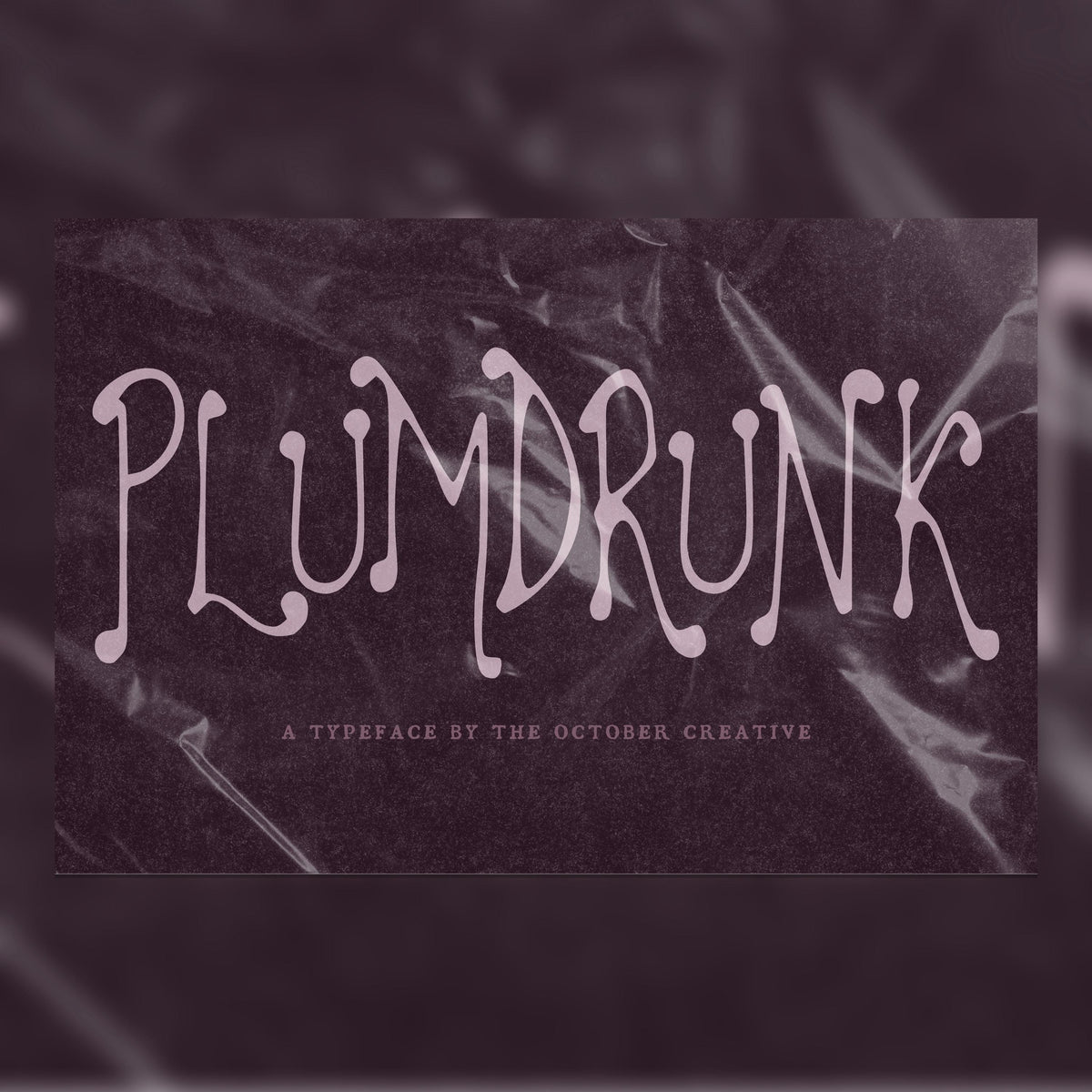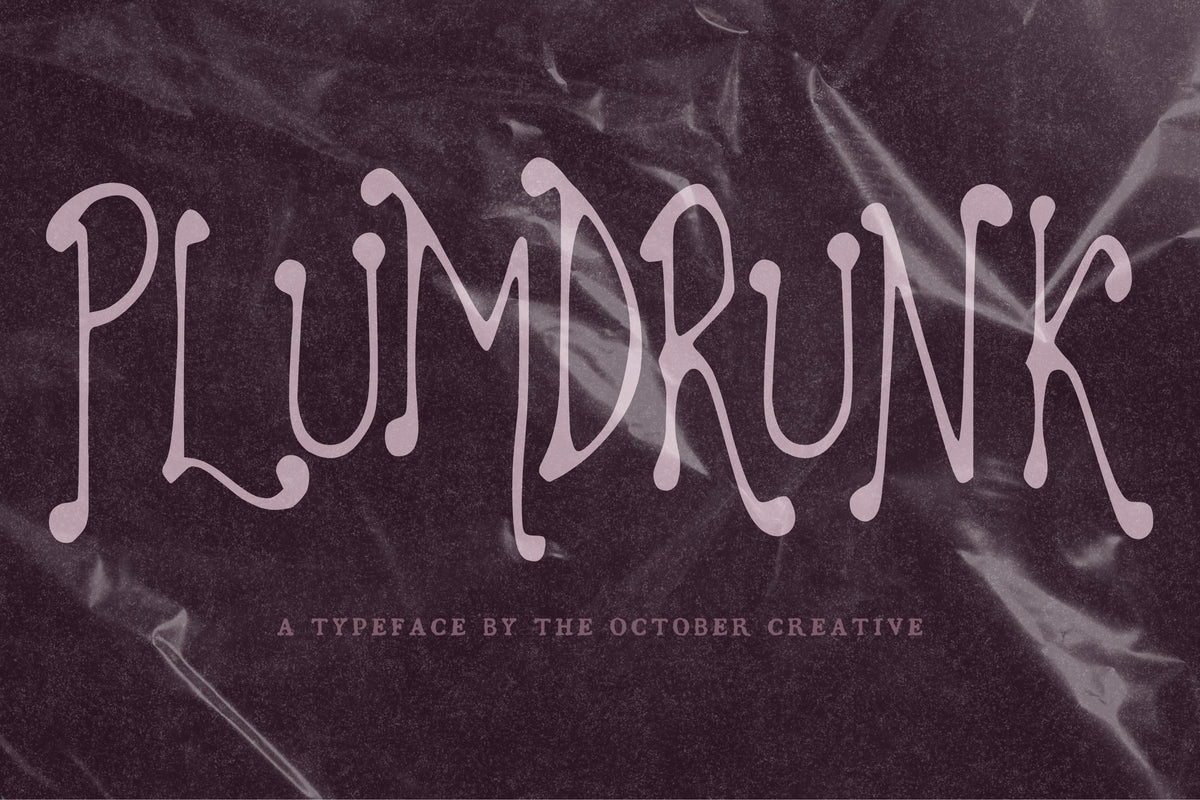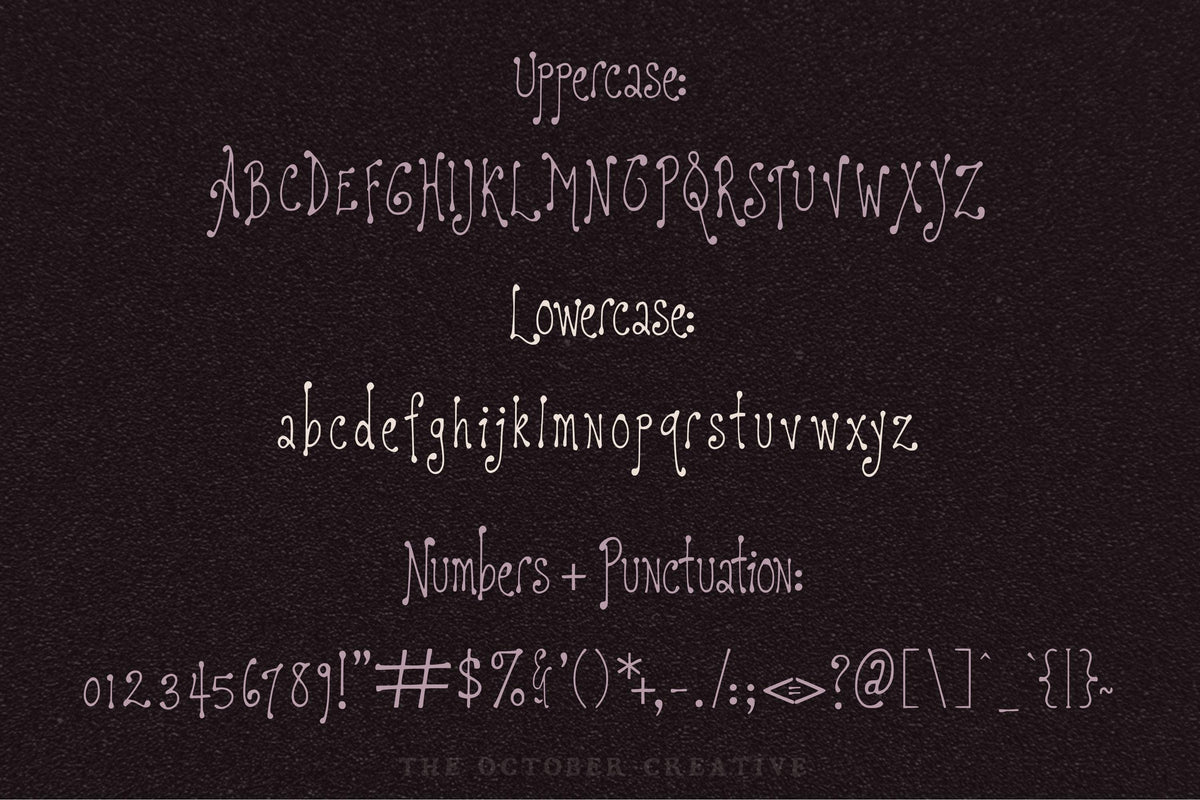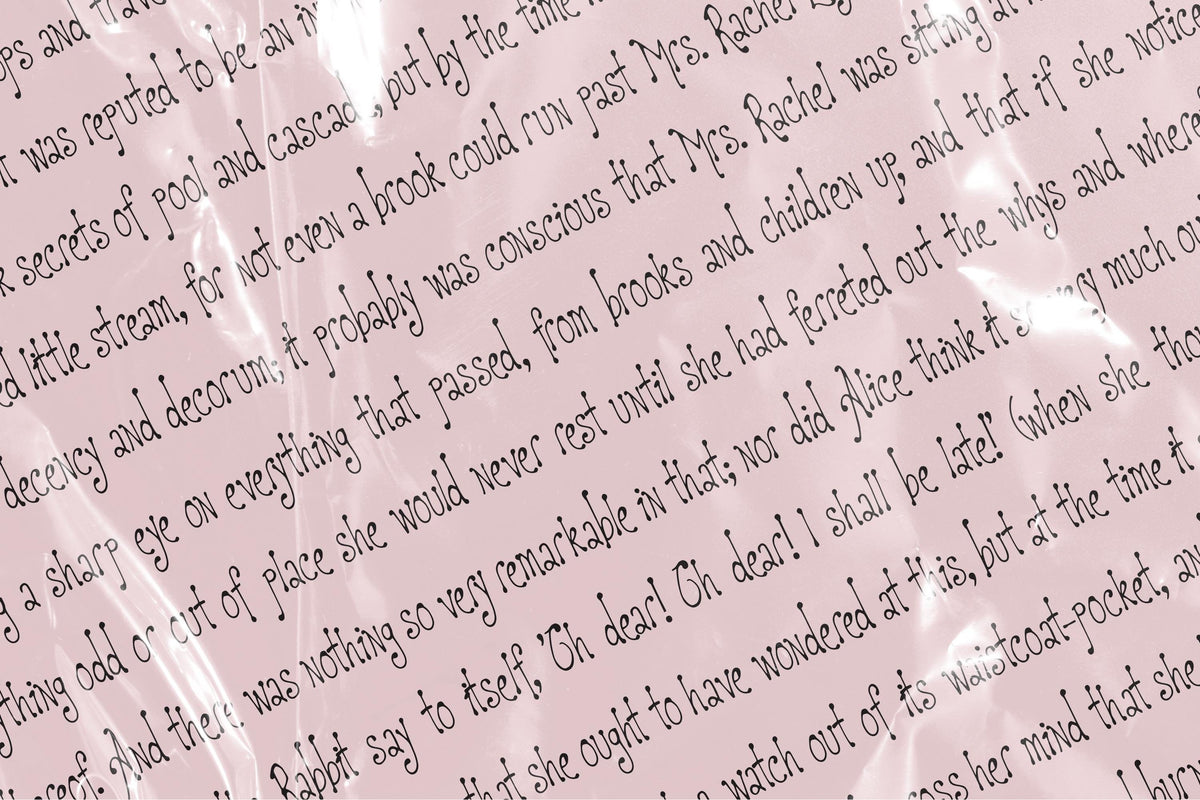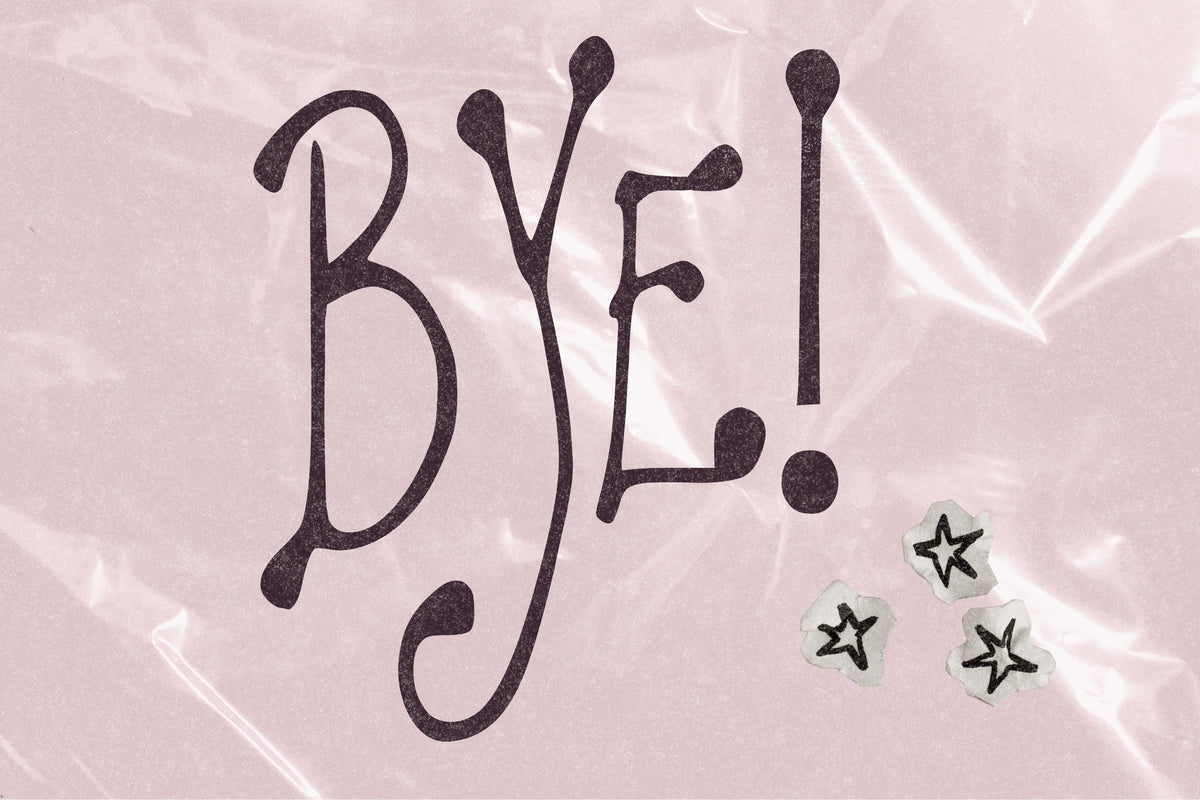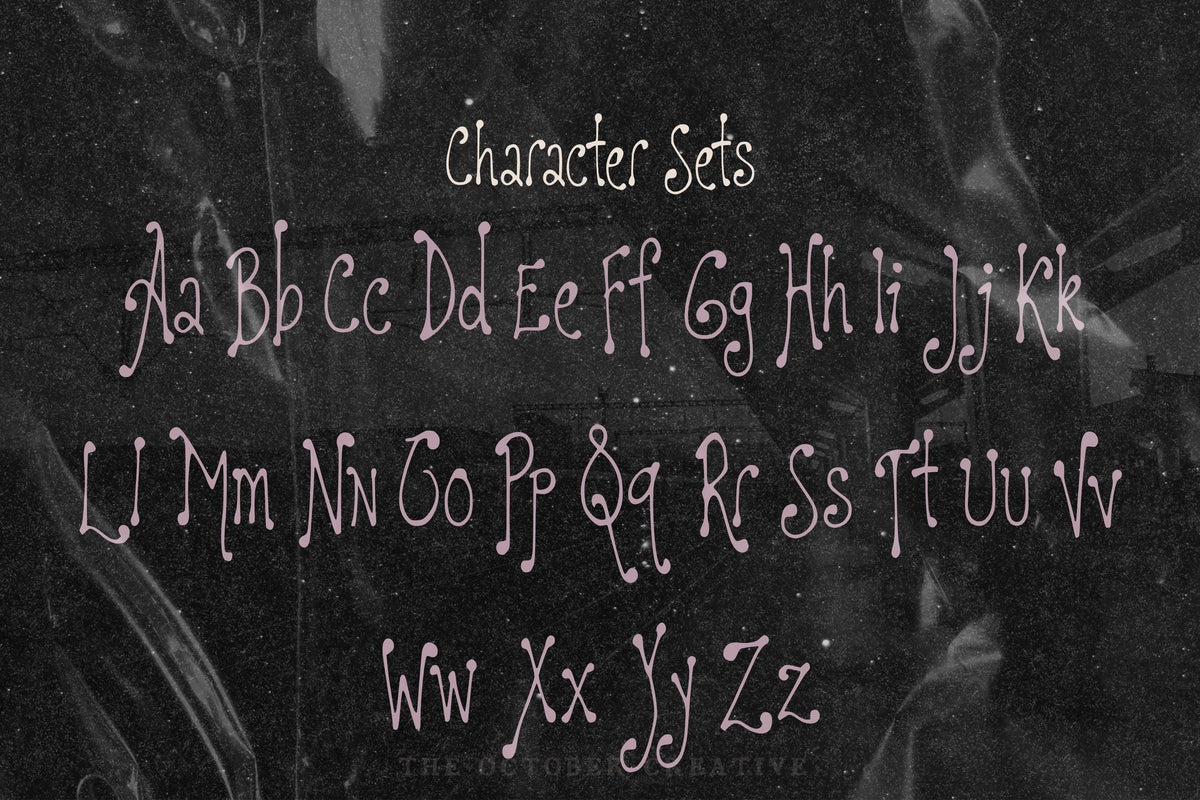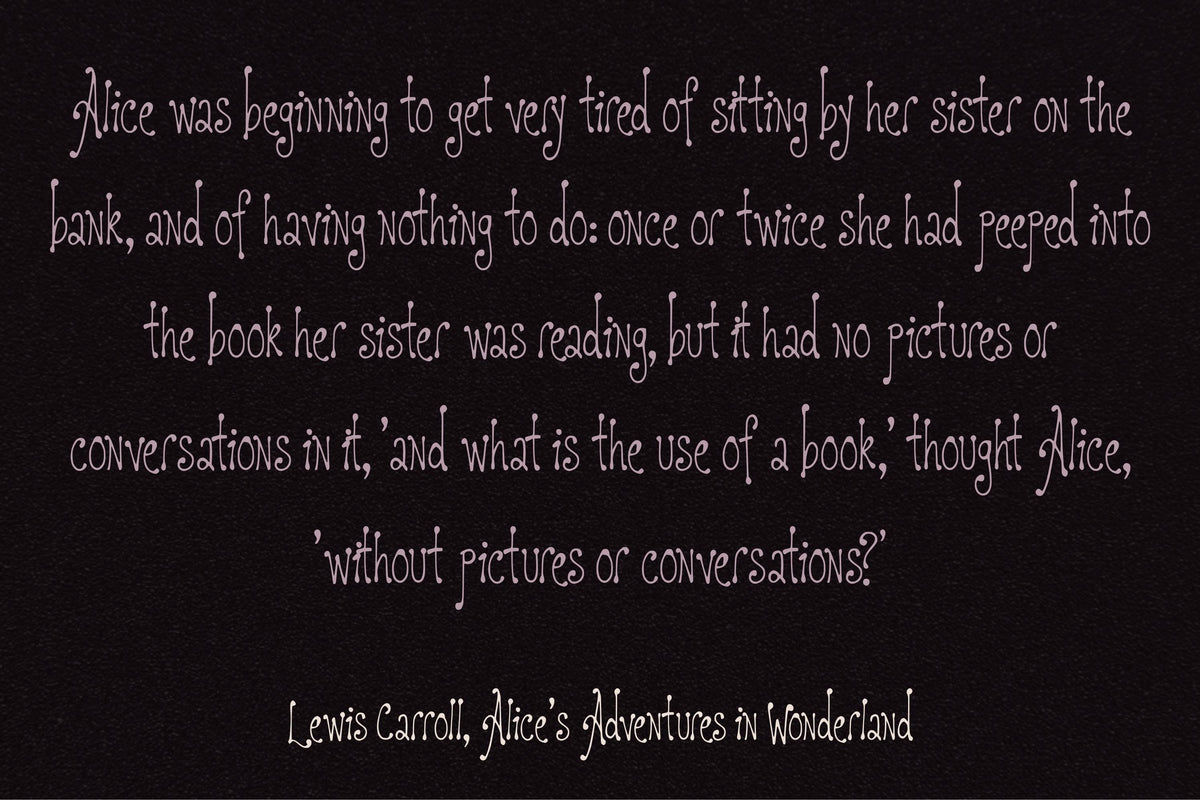
Plumdrunk Font
Plumdrunk adds small curls and a gentle wobble to slender, upright letters. Try it on product labels, gift tags, and little shop signs when you want a name to look pretty without covering it in flourishes.
• One style: Plumdrunk Regular
• Uppercase A to Z, lowercase a to z, numbers 0 to 9, and every standard keyboard punctuation mark and symbol
• Curly quotes and apostrophes, dashes, an ellipsis, and a bullet
• Common accented letters for names, like José, Chloé, Zoë, Renée, and Françoise
• One Regular style, with no alternate characters or ligatures.